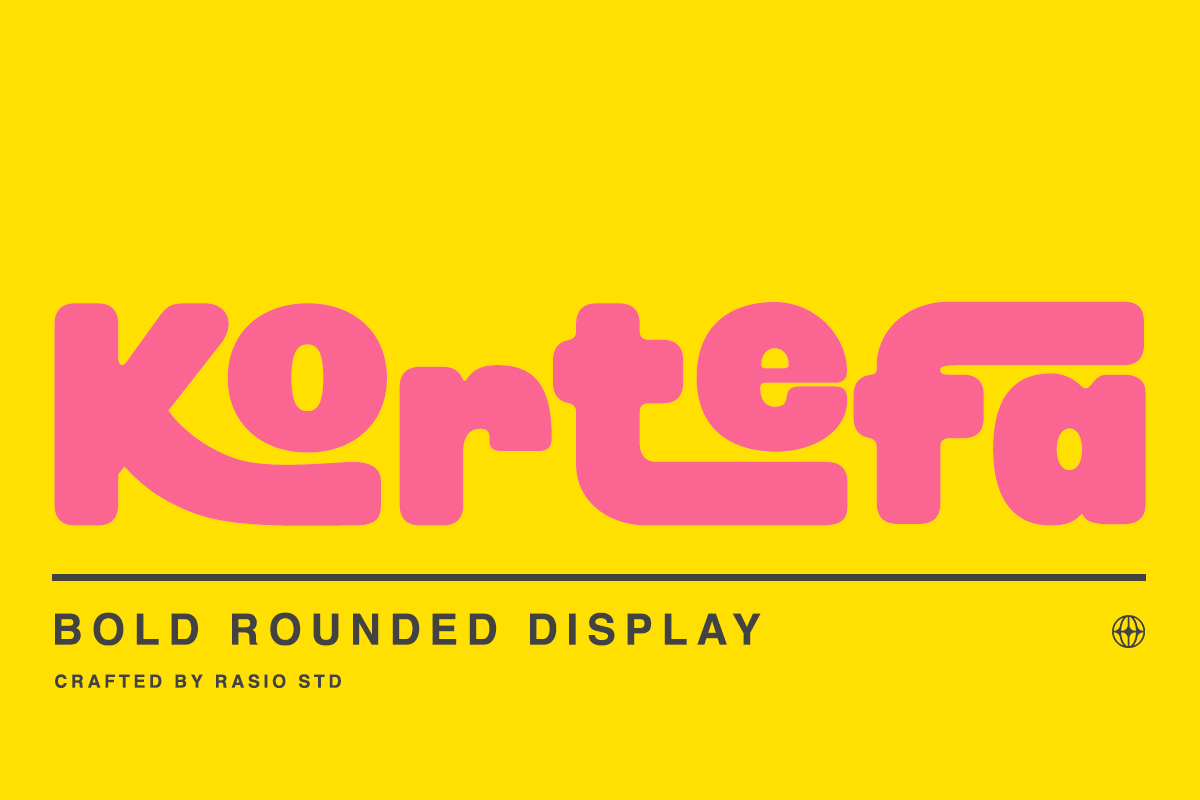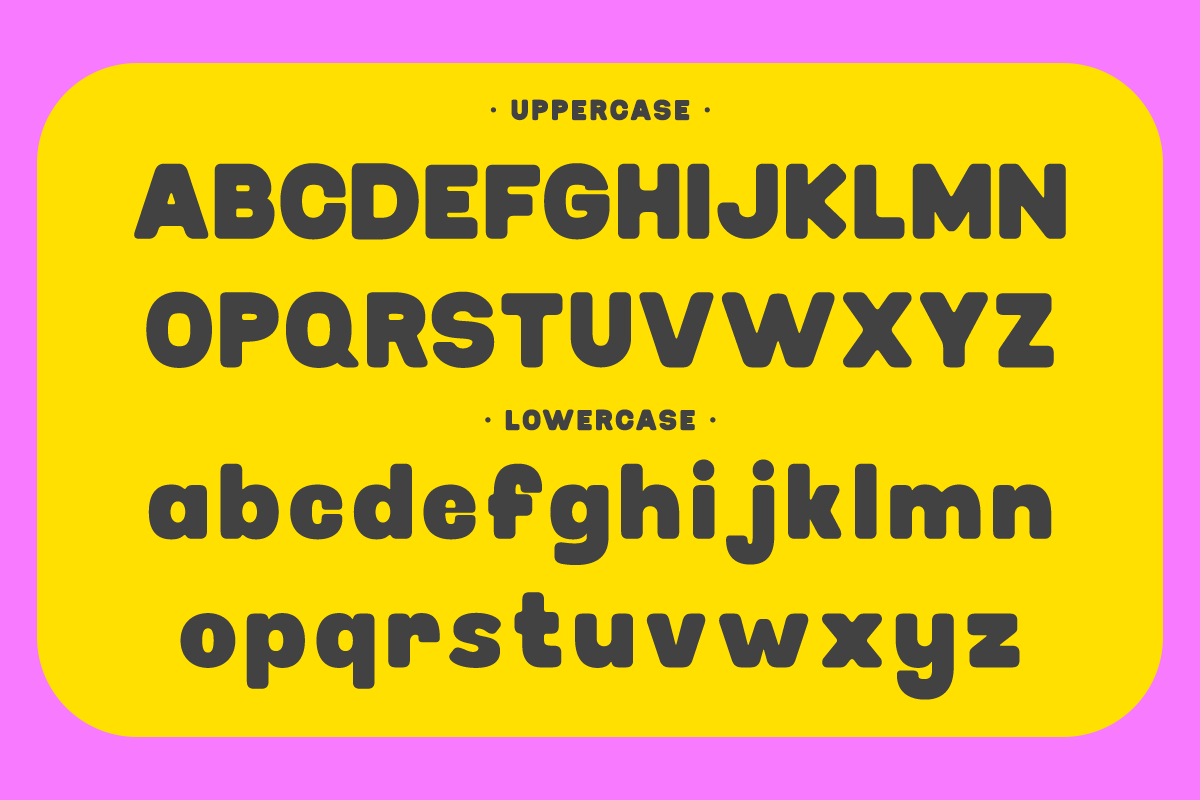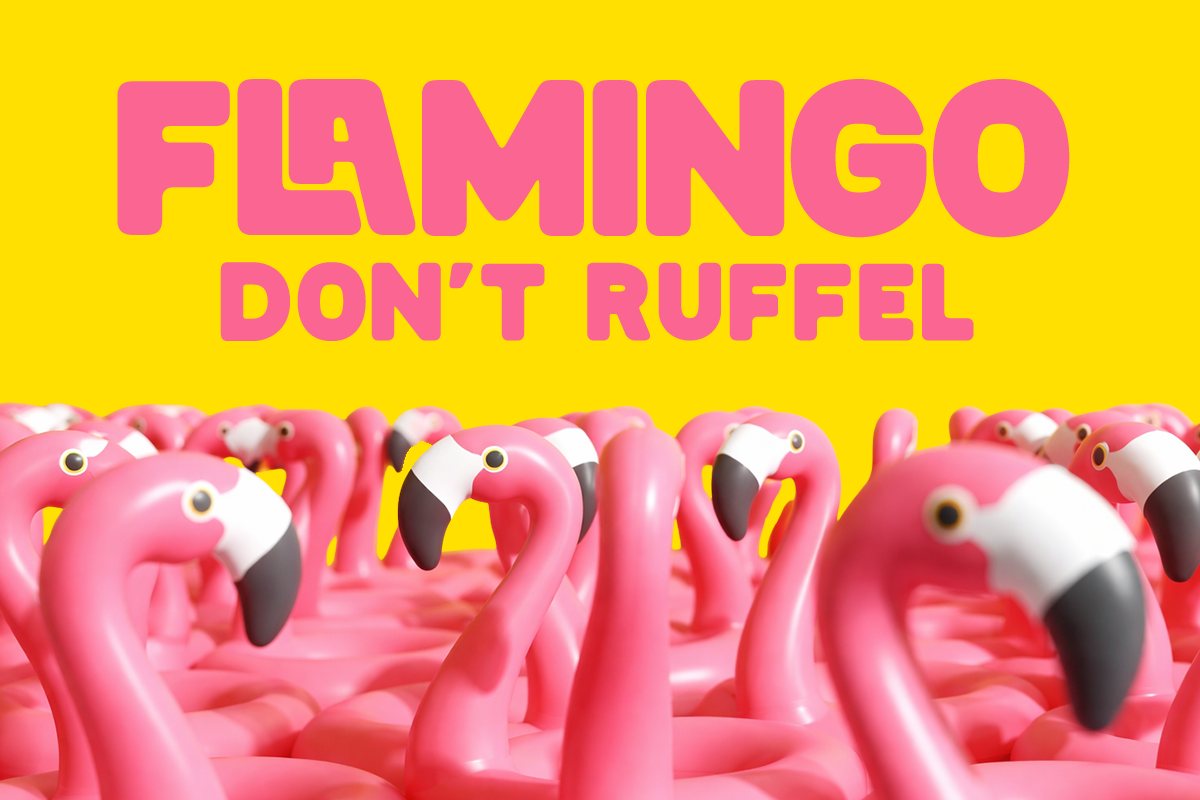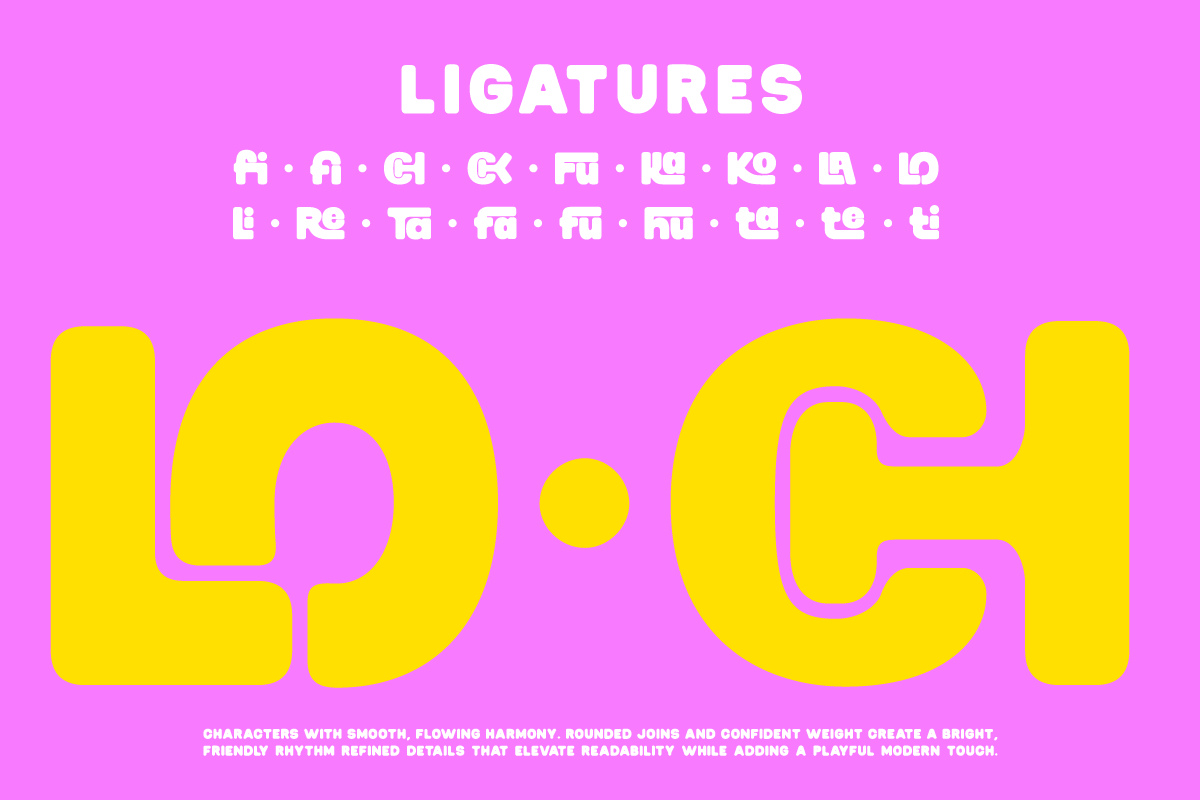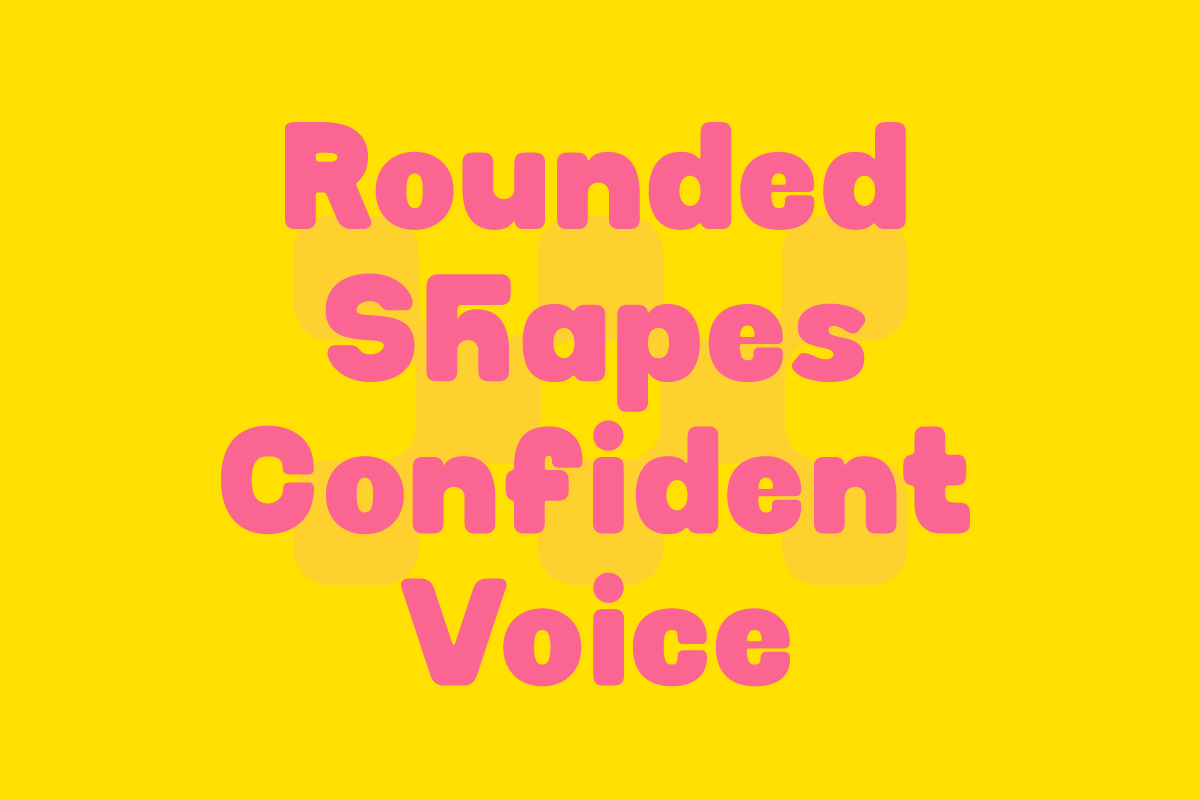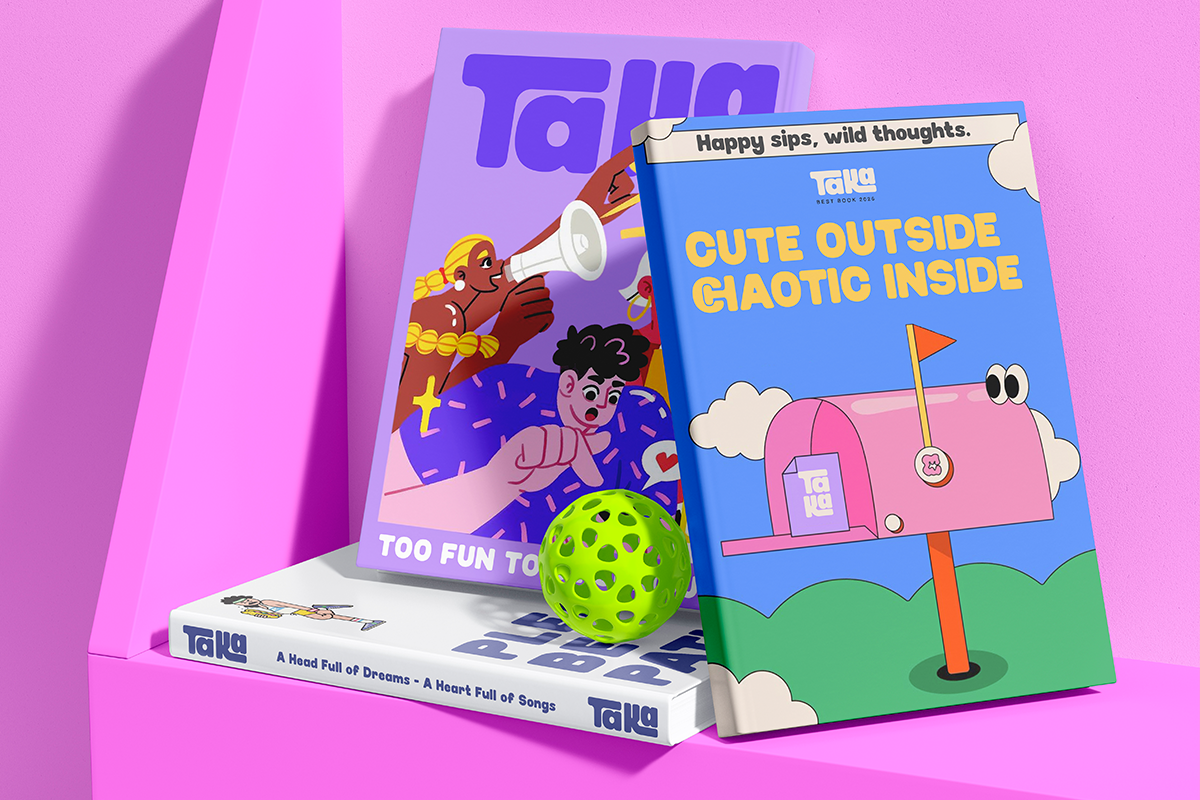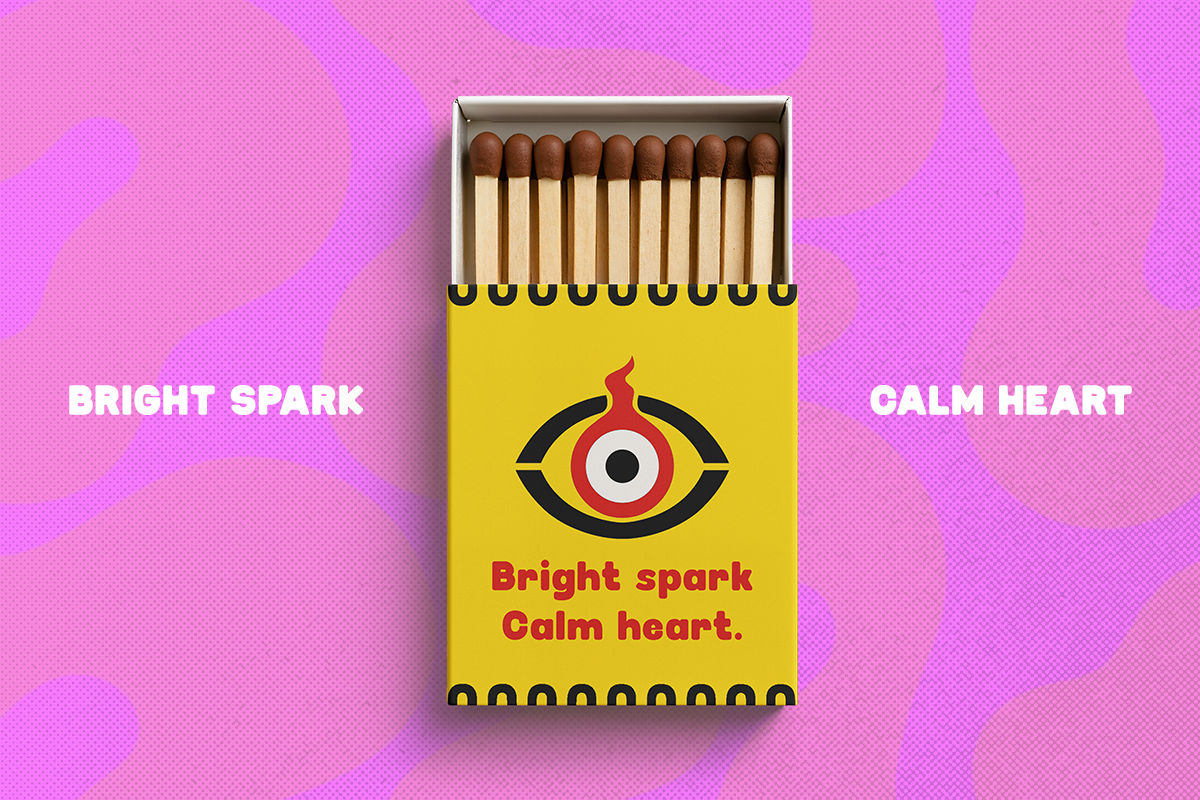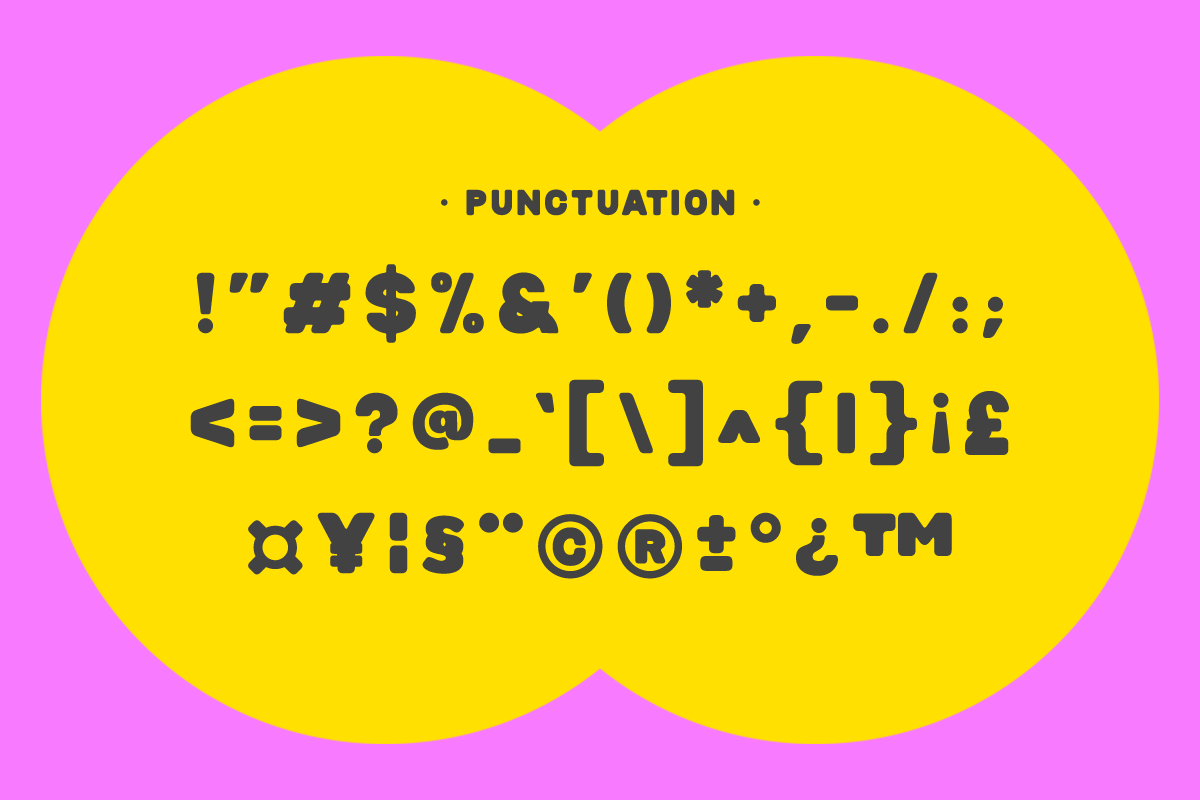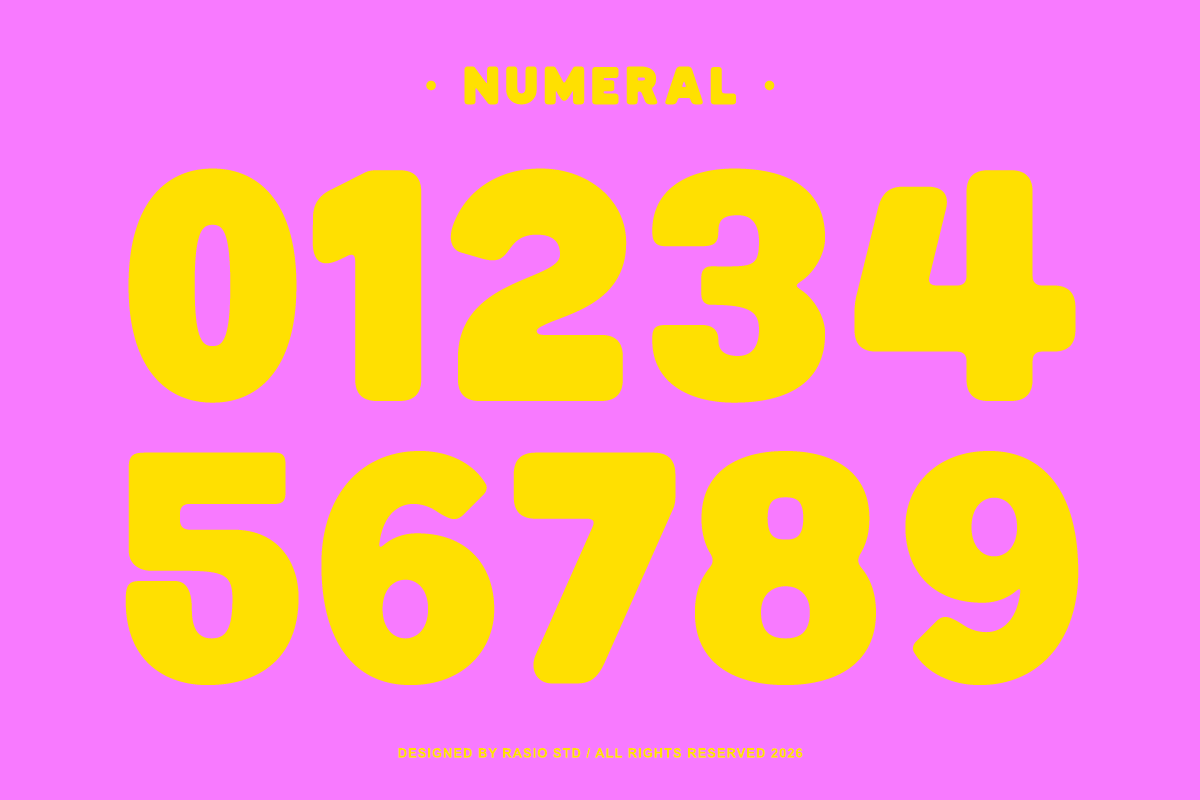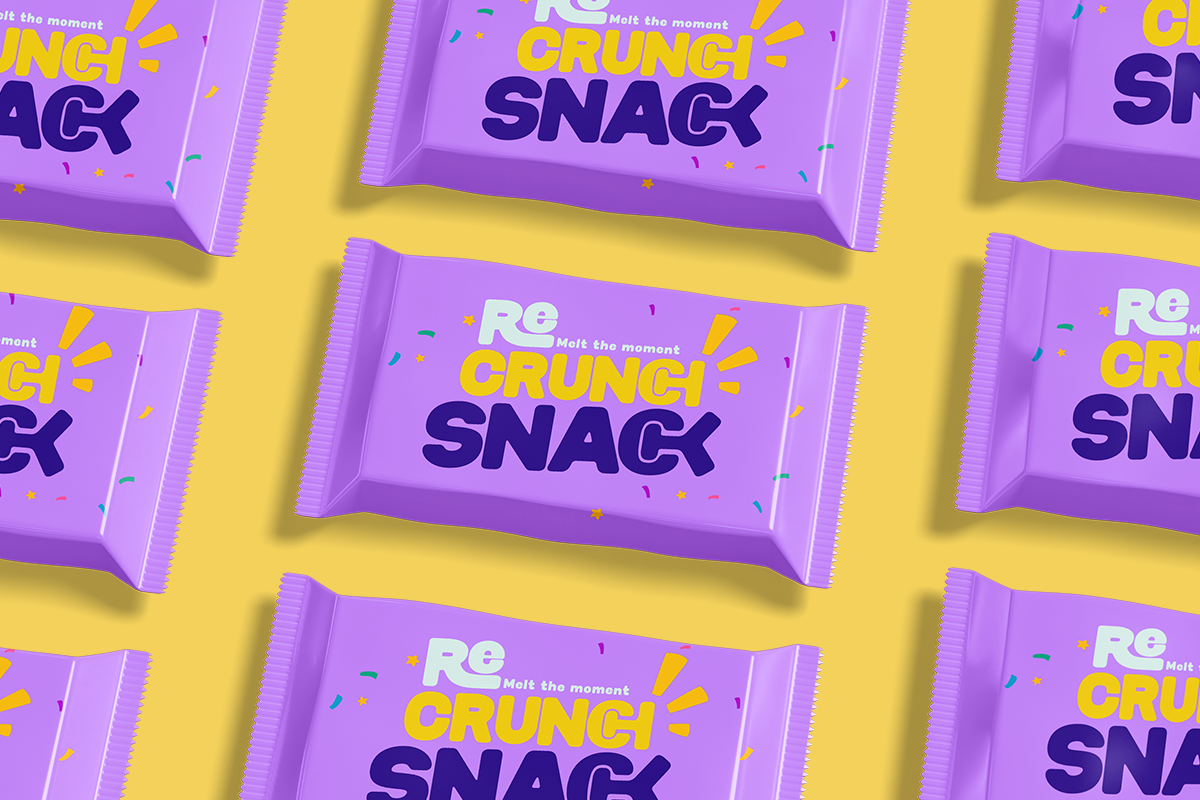
Kortefa Bold Rounded Display Font
Kortefa is a bold rounded display typeface designed with thick strokes, soft curves, and playful geometric letterforms that create a strong yet friendly visual presence. The font features smooth rounded terminals and compact proportions that enhance readability while maintaining a fun and modern character. This typeface includes uppercase, lowercase, numerals, punctuation, and multilingual support, making it suitable for a wide range of creative design projects.
This font is highly relevant for bold visual design projects that require strong personality and friendly appeal. It works well for branding, posters, product packaging, children-focused designs, playful logos, social media graphics, and modern marketing visuals. The thick rounded forms help attract attention while keeping the typography approachable and easy to read.
- Bold rounded letterforms with thick, playful strokes
- Smooth curved terminals for a soft and friendly feel
- Chunky geometric shapes that create strong visual impact
- Consistent stroke weight for balanced typography
- Clear spacing optimized for bold display use
- Bold branding and logo designs that need a playful personality
- Eye-catching posters, headlines, and display typography
- Kids products, toys, and fun packaging design
- Social media graphics and vibrant marketing visuals
- Creative merchandise, stickers, and modern pop design